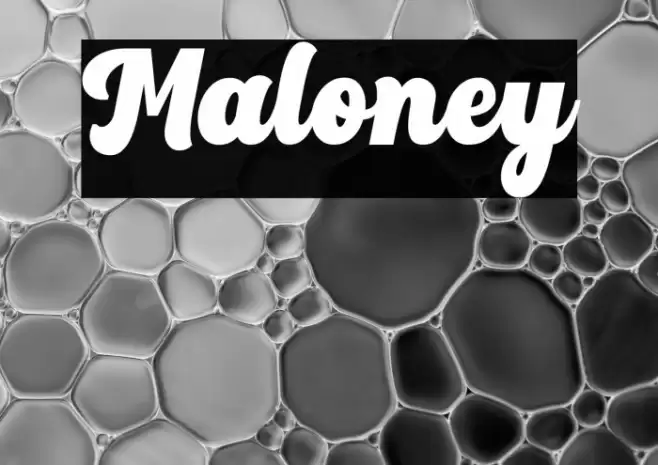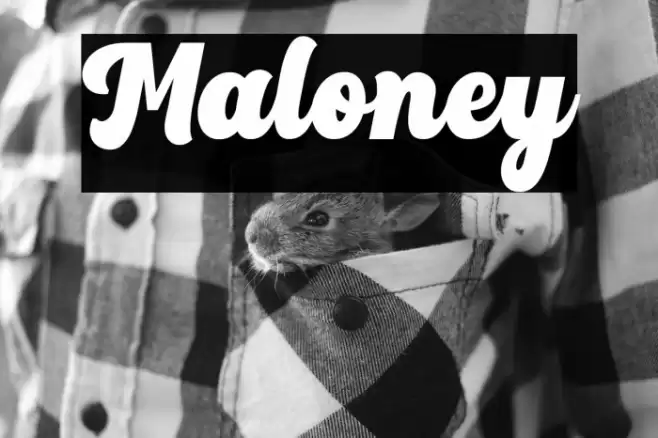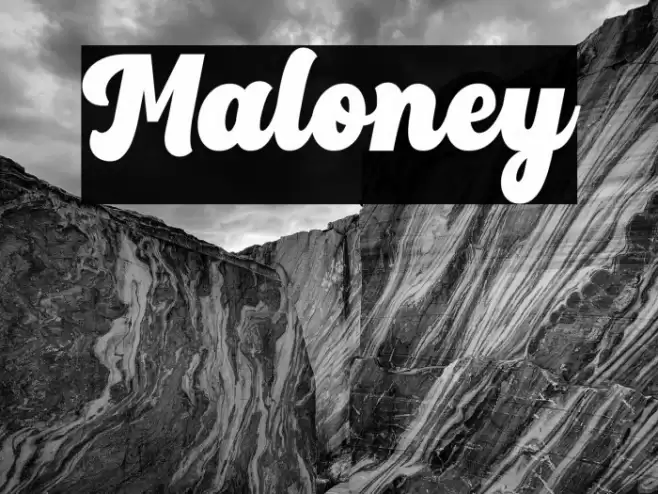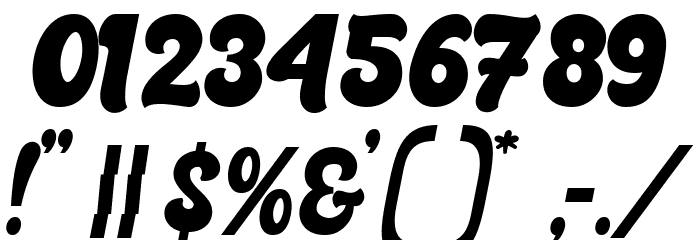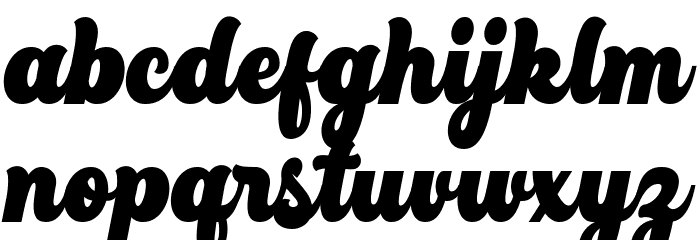
Maloney Font
Maloney Description
This font features a bold, cursive style with a strong presence and fluidity. The characters are connected, creating a seamless flow that is both elegant and dynamic. The uppercase letters are slightly more embellished, while the lowercase letters maintain a consistent, rounded form. Numbers and special characters follow the same bold, cursive design, ensuring uniformity across all glyphs. The overall appearance is striking and memorable, making it ideal for attention-grabbing designs.
A bold, cursive font with fluid, connected characters from Regular fonts.
- Proposed Projects: Ideal for branding, logos, headlines, and posters where a bold, stylish impact is desired.
- Character Spacing: Tight